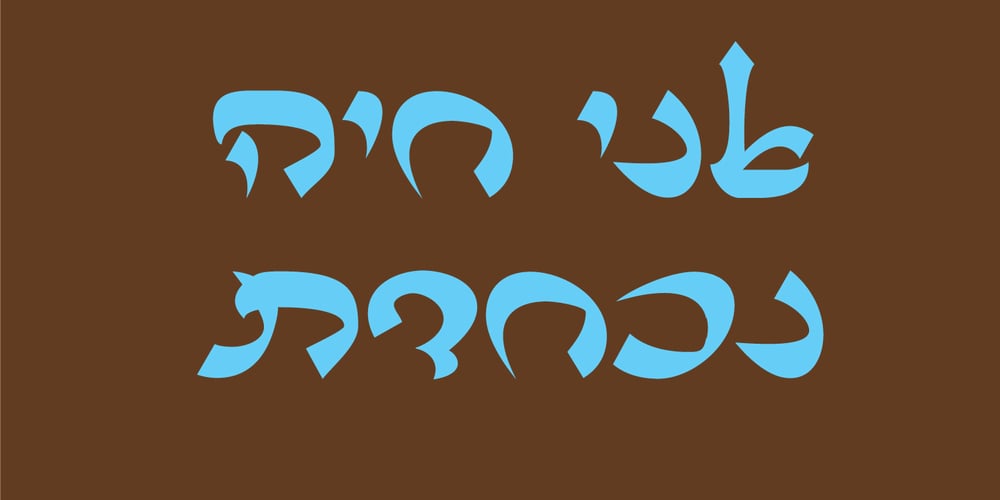
Mediterano MF Font Family was designed by Orna Pinhasov and published by Masterfont. Mediterano MF contains 1 styles and family package options. Romantic handwriting looks great on your next anniversary invitation.